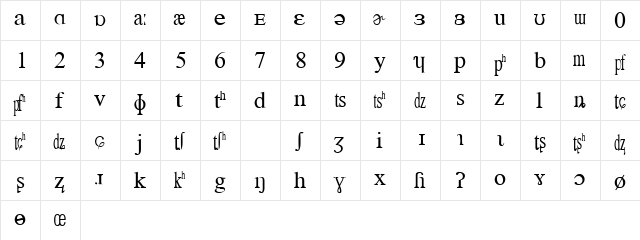
DOCIPA Regular
Design Context for DOCIPA Typeface
DOCIPA takes a measured approach to typography — its balanced proportions and neutral character make it a reliable workhorse for both digital and print work.